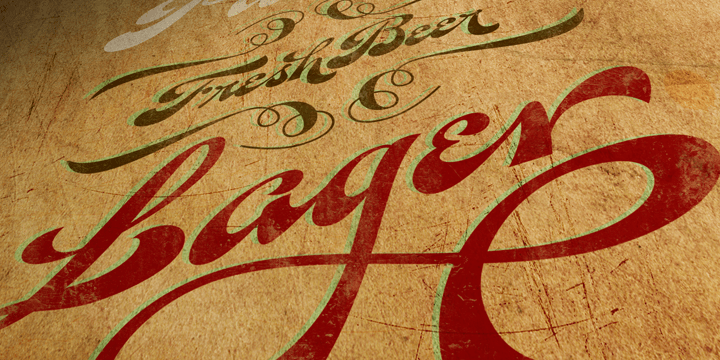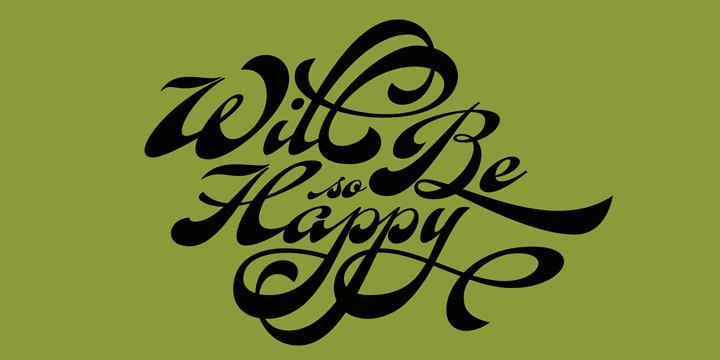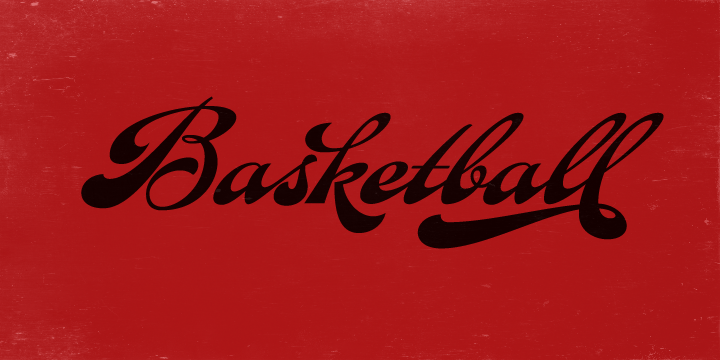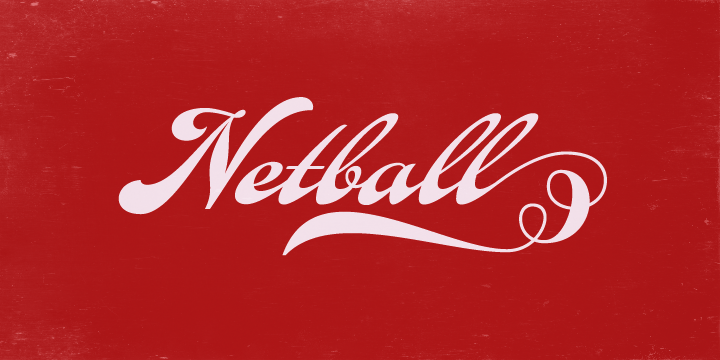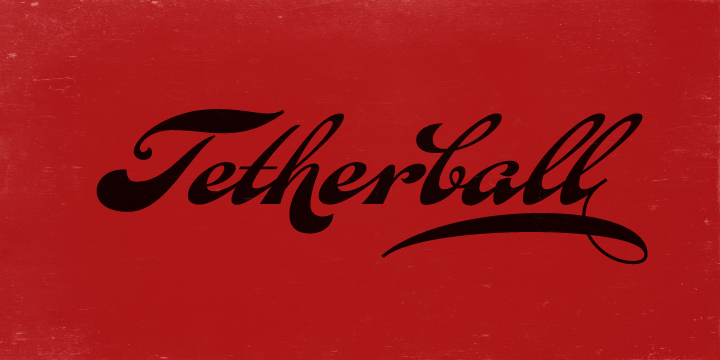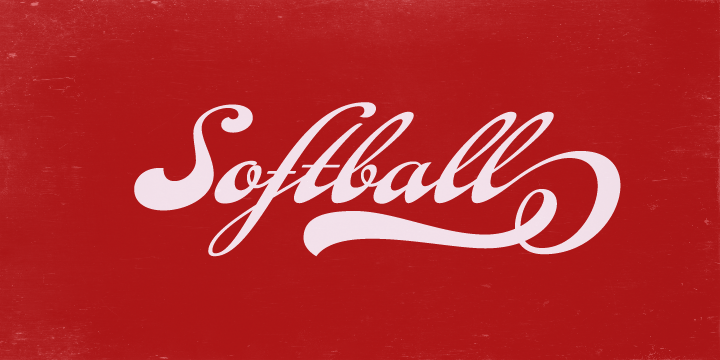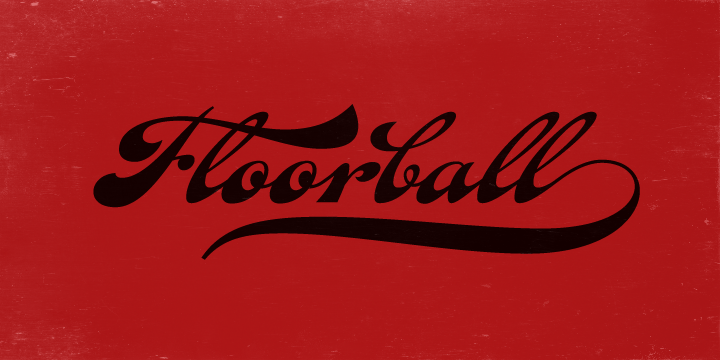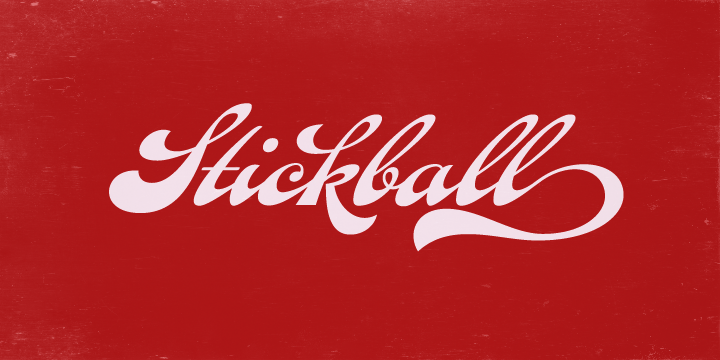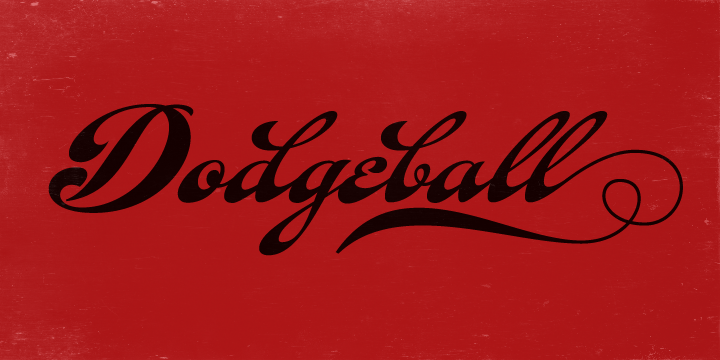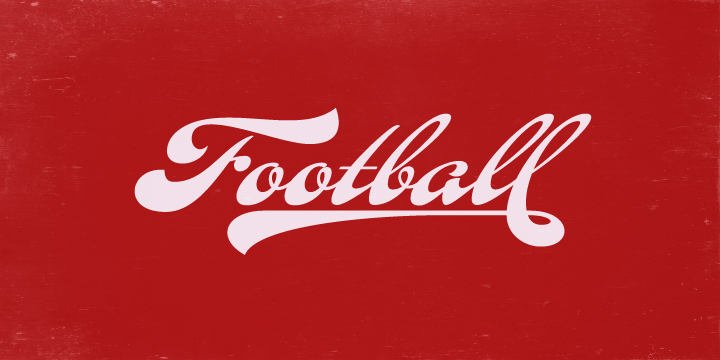
Fan Script
Font Family by Sudtipos
A friend of mine says that sports are the ultimate popular drug. One of his favorite things to say is, ?The sun's always shining on a game somewhere.?
It's hard to argue with that. But that perspective is now the privilege of a society where technology is so high and mighty that it all but shapes such perspectives. These days I can, if I so choose, subscribe to nothing but sports on over a hundred TV channels and a thousand browser bookmarks. But it wasn't always like that.
When I was growing up, long before the super-commercialization of the sport, I and other kids spent more than every spare minute of our time memorizing the names and positions of players, collecting team shirts and paraphernalia, making up game scenarios, and just being our generation's entirely devoted fans. Argentina is one of the nations most obsessed with sports, especially "f